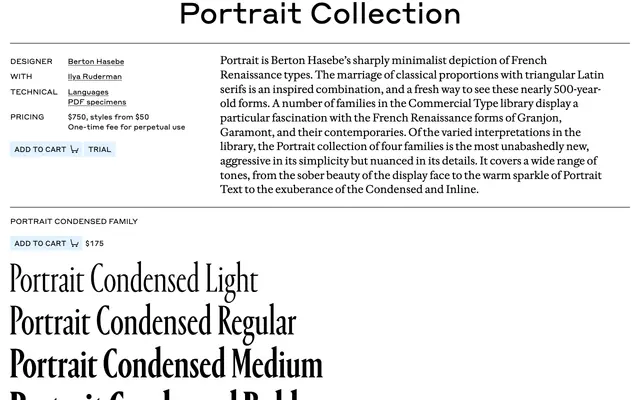
Portrait
Berton Hasebe's sharply minimalist take on French Renaissance types, with display, text, condensed and inline cuts covering everything from sober editorial to fashion masthead.
A four-family system by Berton Hasebe, drawn with Ilya Ruderman for Cyrillic. Portrait covers Light through Heavy with italics for display use, Portrait Text adds a robust workhorse for body, Portrait Condensed extends to five weights for tighter measures, and Portrait Inline brings a decorative cut. The collection marries classical French Renaissance proportions with triangular Latin serifs, ranging from the sober beauty of the display face to the warm sparkle of the text and the exuberance of the condensed and inline cuts. Suits fashion, beauty, cultural and editorial systems.
Commercial Type describe Portrait as Berton Hasebe's sharply minimalist depiction of French Renaissance types, marrying classical proportions with triangular Latin serifs across display, text, condensed and inline cuts.